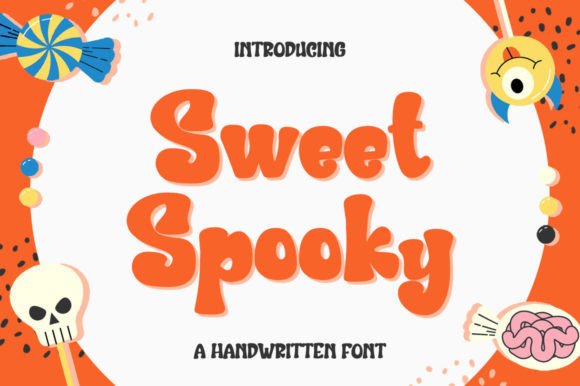
Enter the realm of the supernatural, where playful spirits dance and type sings its melody. Sweet Spooky Font is not just a font; it's a gateway to a world of Halloween enchantment. Crafted by the ingenious minds at Graphix Line Studio, this display font is a masterpiece yearning to unleash your creativity.
Behold, the essence of Halloween, captured in every curve and stroke of Sweet Spooky Font. It's the perfect font to make your posters scream "Halloween!" From eerie invitations to spine-tingling flyers, this font will leave an unforgettable mark on your audience. Its playful spirit will turn your words into mischievous whispers, making every design spellbinding.
Experience the enchanting aura of Sweet Spooky Font. It's the perfect companion for Halloween-themed designs, ready to infuse your creations with an air of mystery and wonder. Its captivating characters will dance across your designs, painting a picture of a haunted world that will leave your audience bewitched.
Don't miss this chance to embrace the magic of Halloween. Embrace the Sweet Spooky Font, let your imagination run wild, and create designs that will make your audience shiver with delight. It's the ultimate font for haunting Halloween designs that will leave a lasting impression.